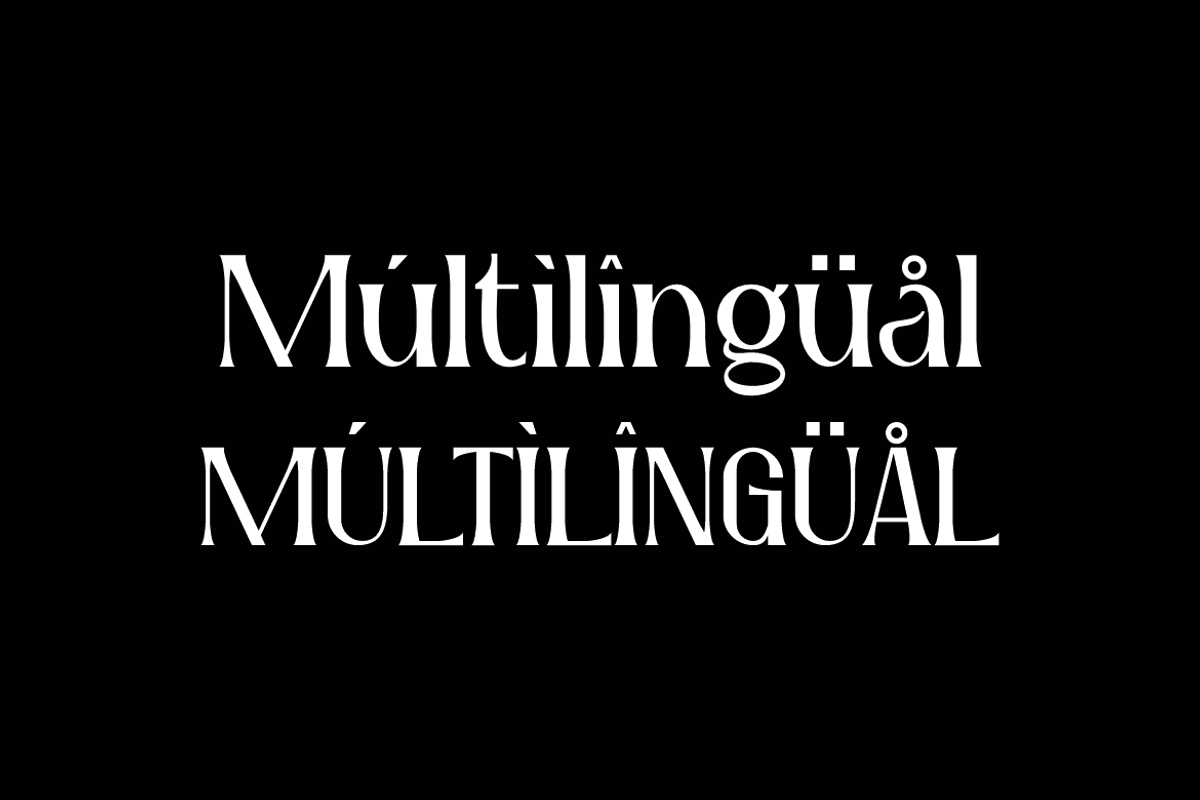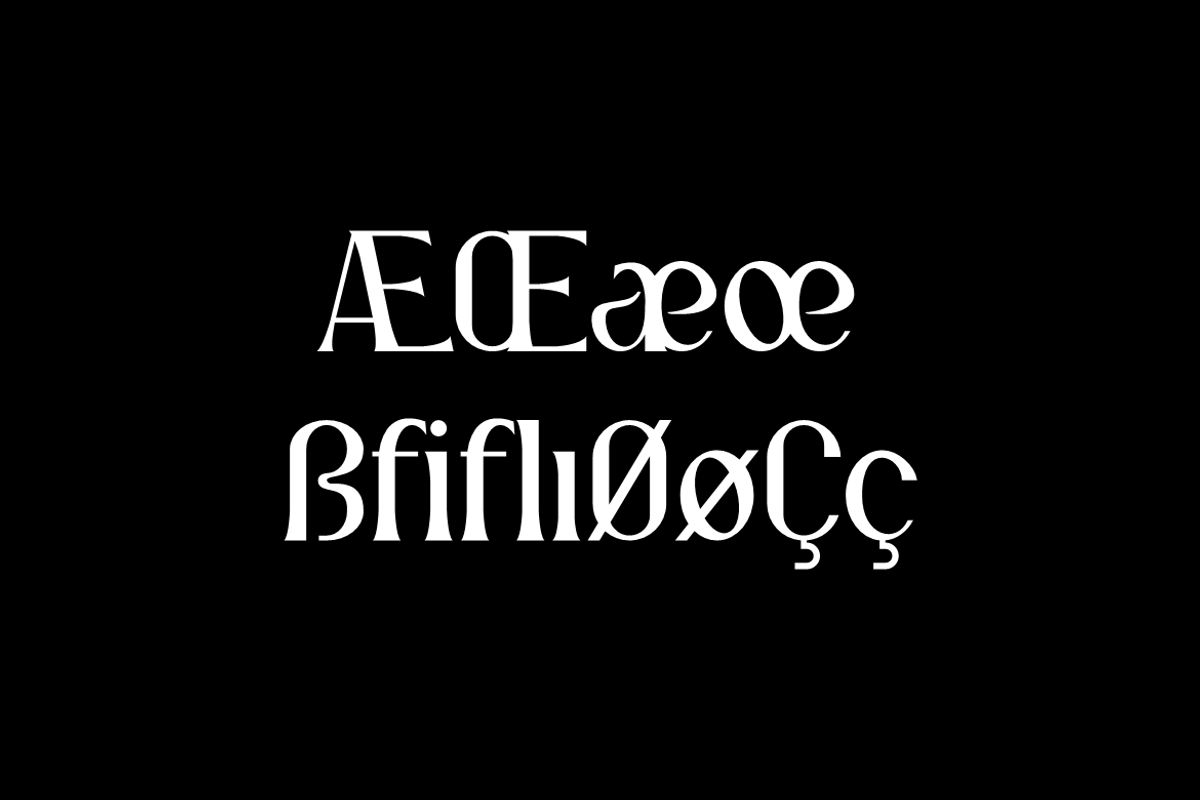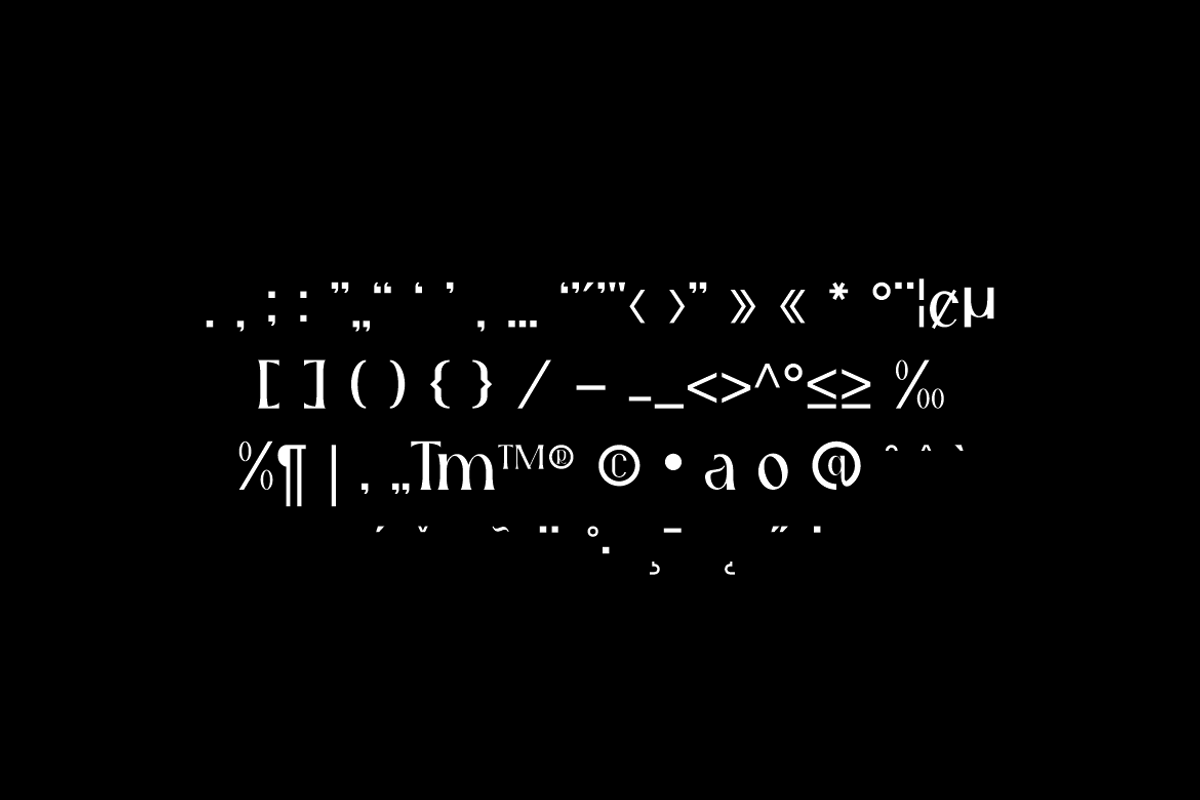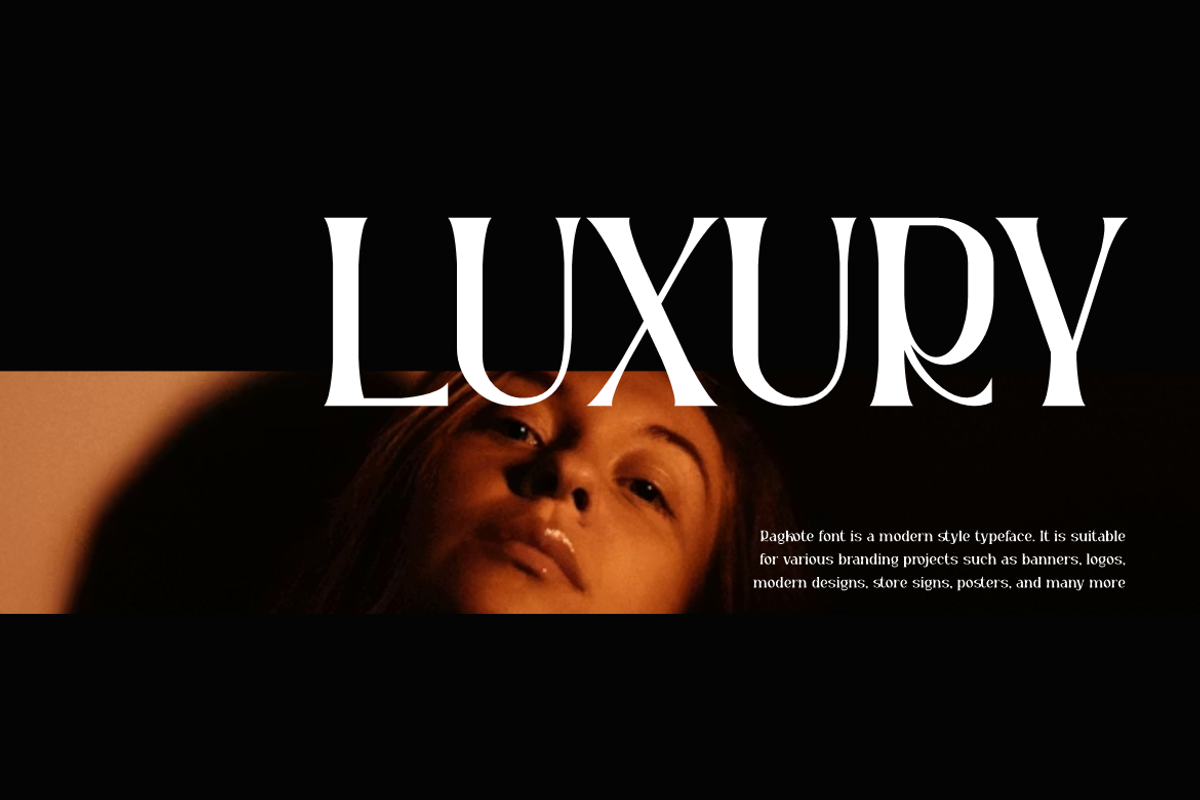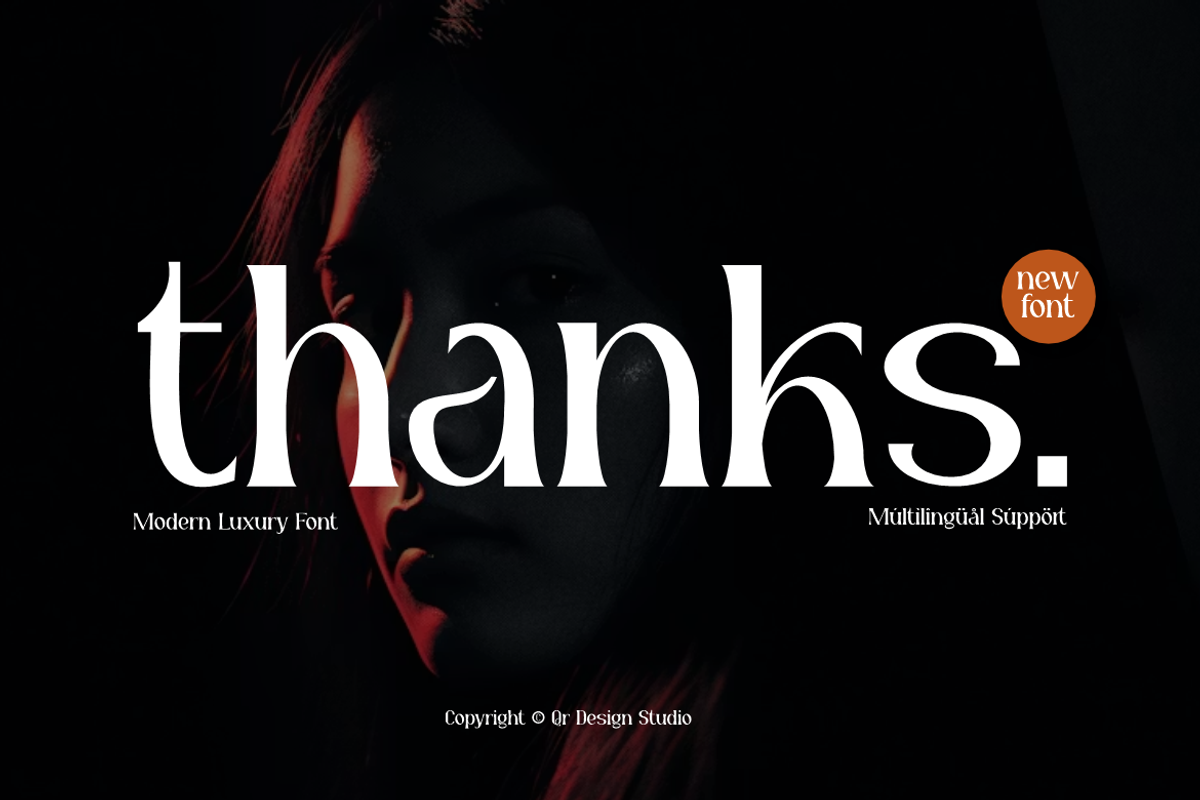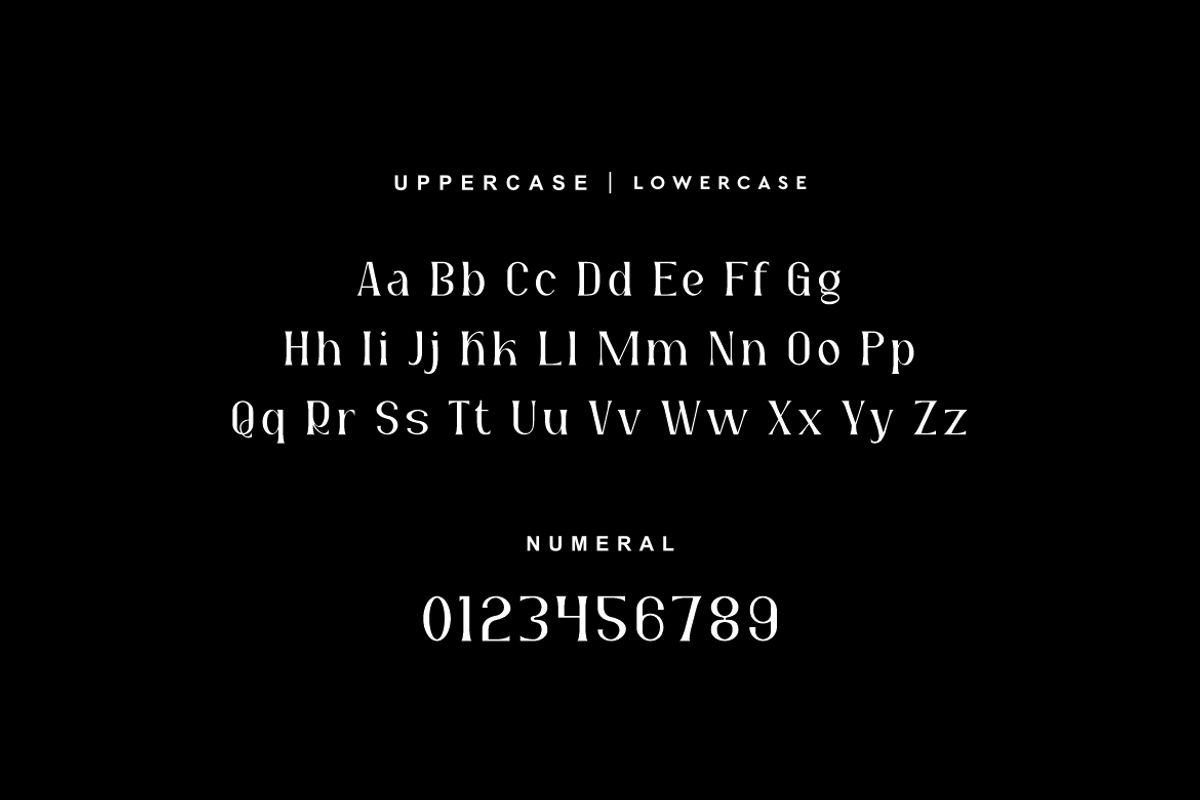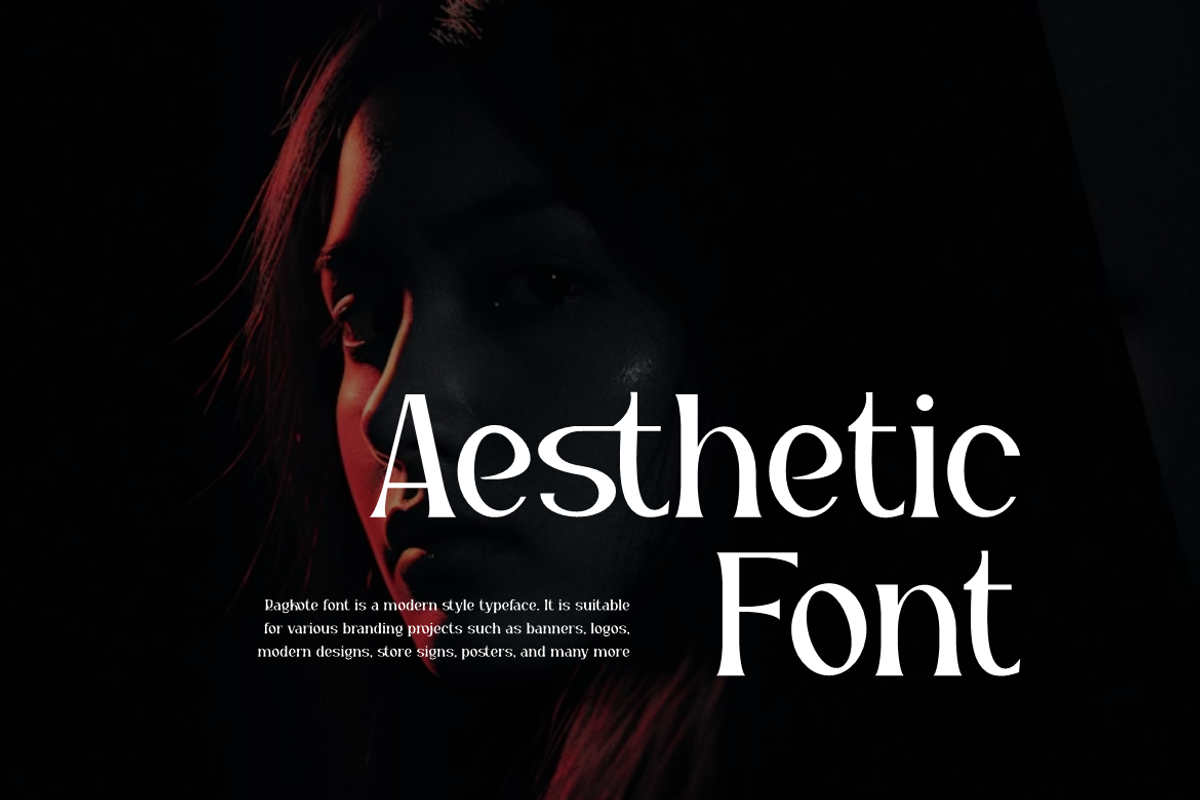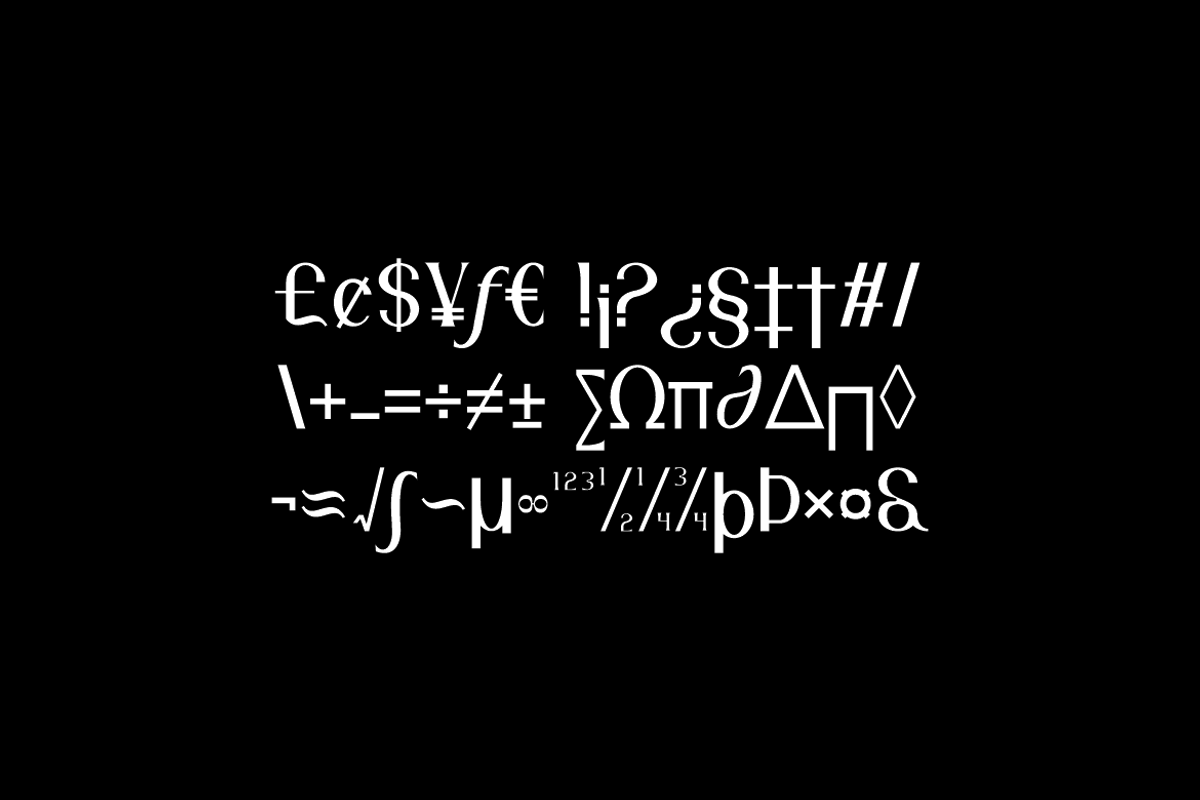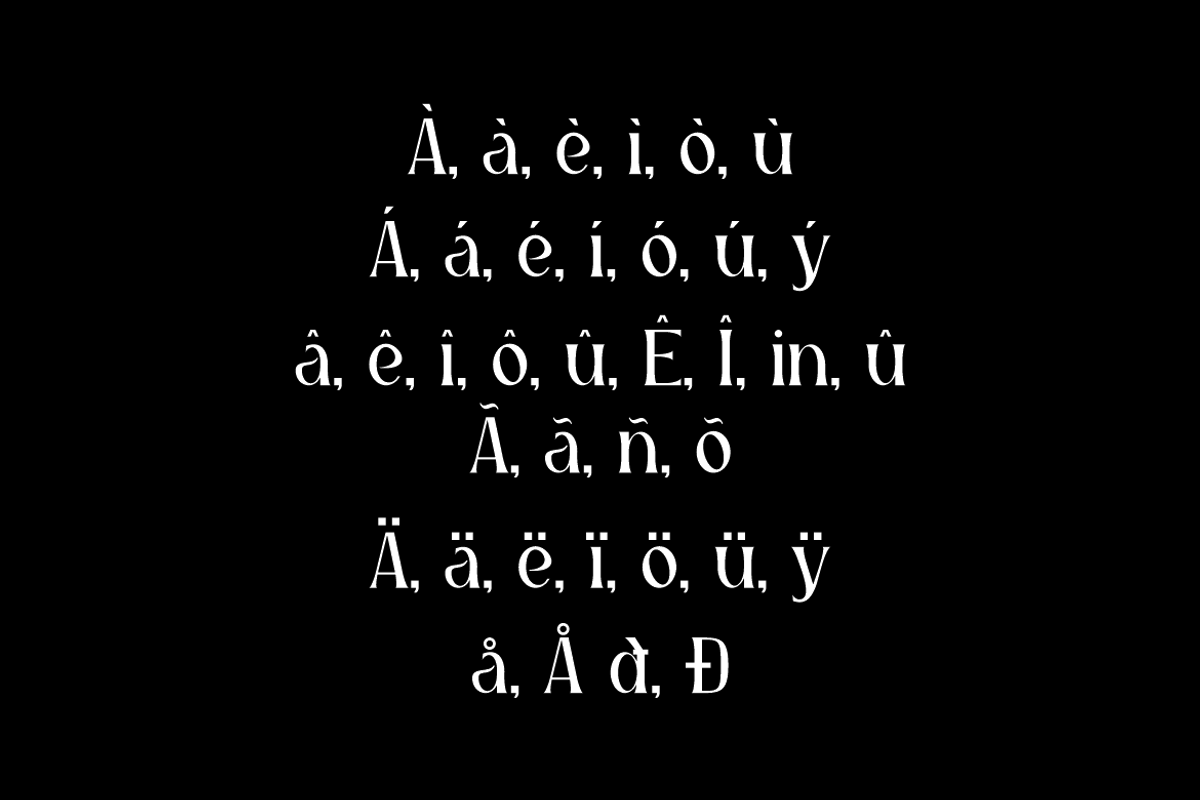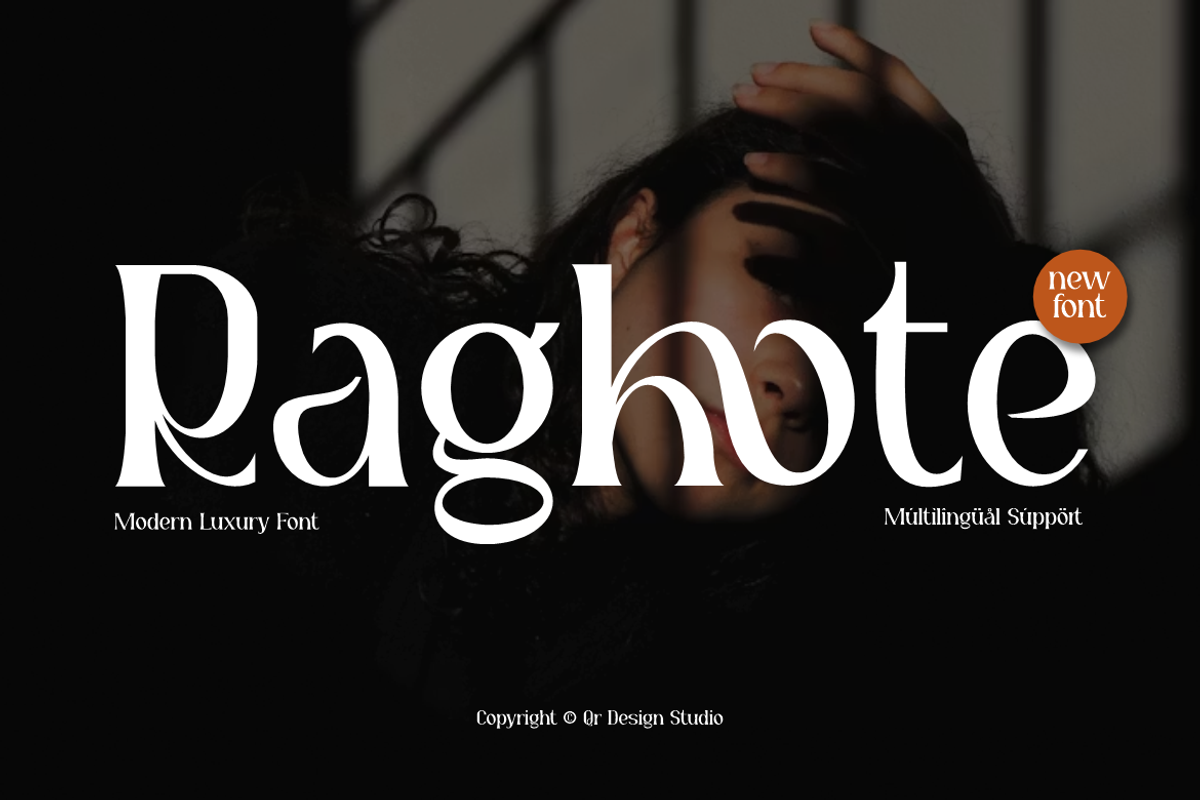
Ragkote - Modern Serif Font
Ragkote Font is a serif and authentic display typeface.
It’s perfect for various branding projects such as logos, modern designs,
and more. This font stands out beautifully in a wide range of contexts.